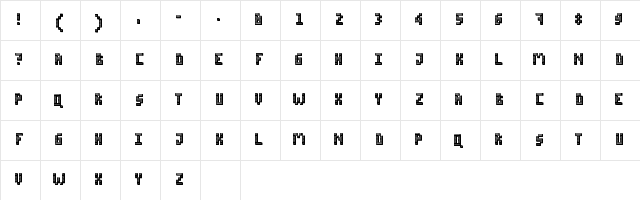
Crt Overscan Regular
Complete Crt Overscan Regular glyph index. Displaying only characters natively supported by Crt Overscan Regular font.
Design Context for Crt Overscan
Crt Overscan is a composed and adaptable typeface that performs quietly and consistently across a wide range of design contexts.